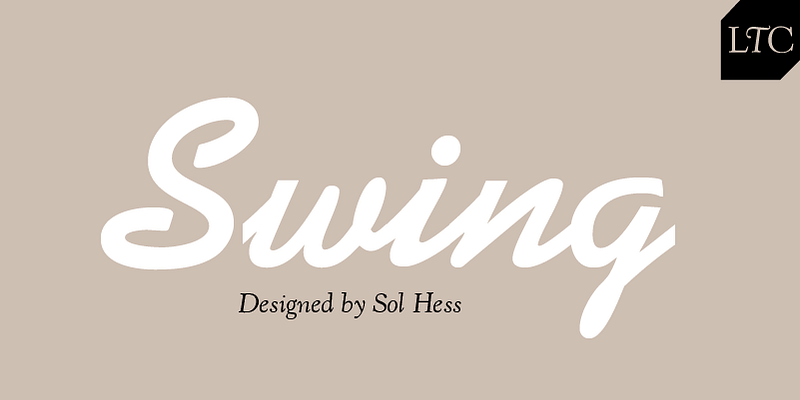
LTC Swing Font Free Download is a lively script typeface with a retro flair, capturing the charm and rhythm of mid-20th-century hand lettering. Its playful curves and swinging strokes make it an excellent choice for vintage posters, event invitations, branding for lifestyle products, and any design that needs a burst of character and energy.
This font brings personality to both print and digital projects and works seamlessly with design tools like Adobe Illustrator, Photoshop, and Canva. With its casual elegance, LTC Swing adds warmth and uniqueness to titles, labels, and creative layouts.